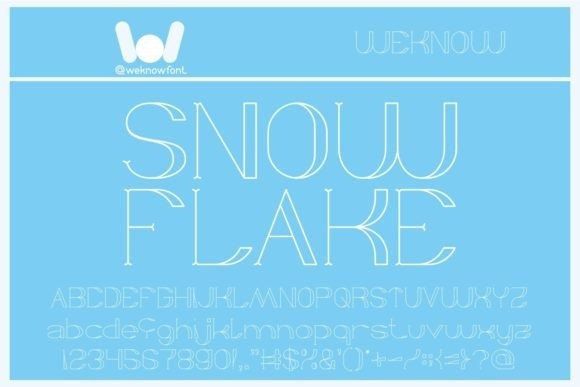
Snow Flake Font
Snow Flake Font is a fancy display font, suitable for a logo, logotype, headline, corporate identity, brand identity, apparel industry, poster, music, movie, game, magazine, book, comic, cartoon, YouTube, Instagram, website, or any of your creative design projects.